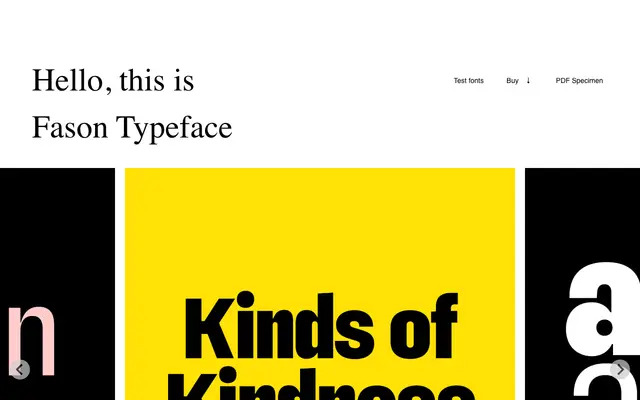
Fason
A geometric sans designed for headlines, built around a technological aesthetic and named after a Polish word for an indefinable personal style.
Designed by Maciej Połczyński, Fason is a sans serif cut for headline use, its name drawn from the Polish term for a certain intangible quality of fashion or manner. The family runs to eight styles with full Polish diacritic support, covering the extended Latin characters required for Central European languages. Its technological character makes it suited to branding, editorial titles and digital contexts where a cold, constructed feel is needed.
Described explicitly as a sans serif headline typeface with a technological vibe, suggesting geometric or constructed letterforms typical of display-oriented geometric sans designs.